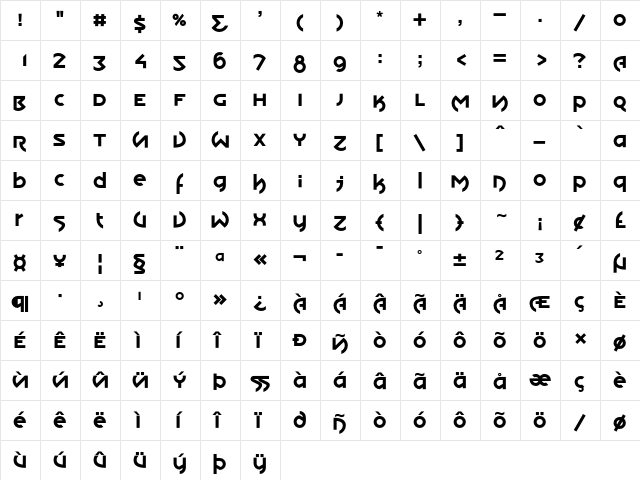
KD William Regular
| Foundry | Kassymkulov Design |
| Designer | Zhalgas Kassymkulov |
Design Context for KD William Typeface
KD William offers clean, dependable letterforms without strong stylistic allegiance, making it a practical choice for designers who need flexibility.